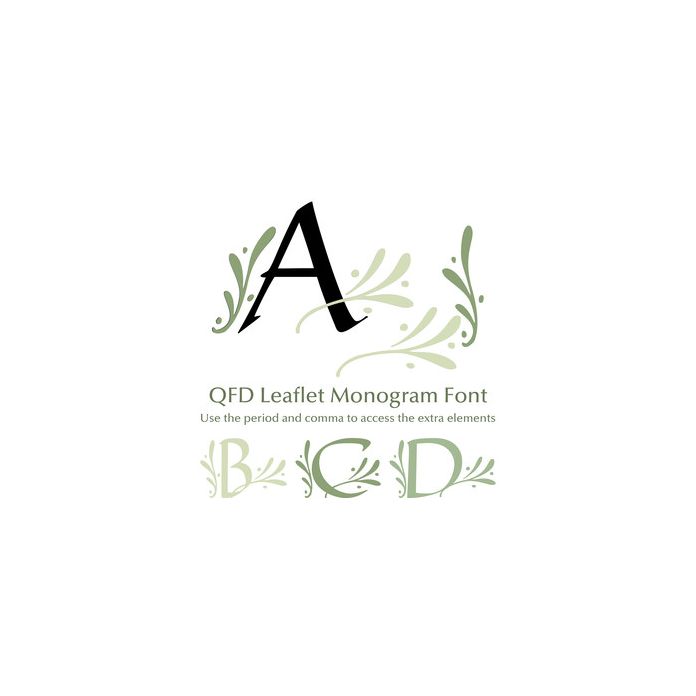
Combine this sweet font with the other QFD Leaflet items. Try adding a letter from this font to the top of the Leaflet Gift Box to create a customized box. Mix and match with the other Leaflet designs!